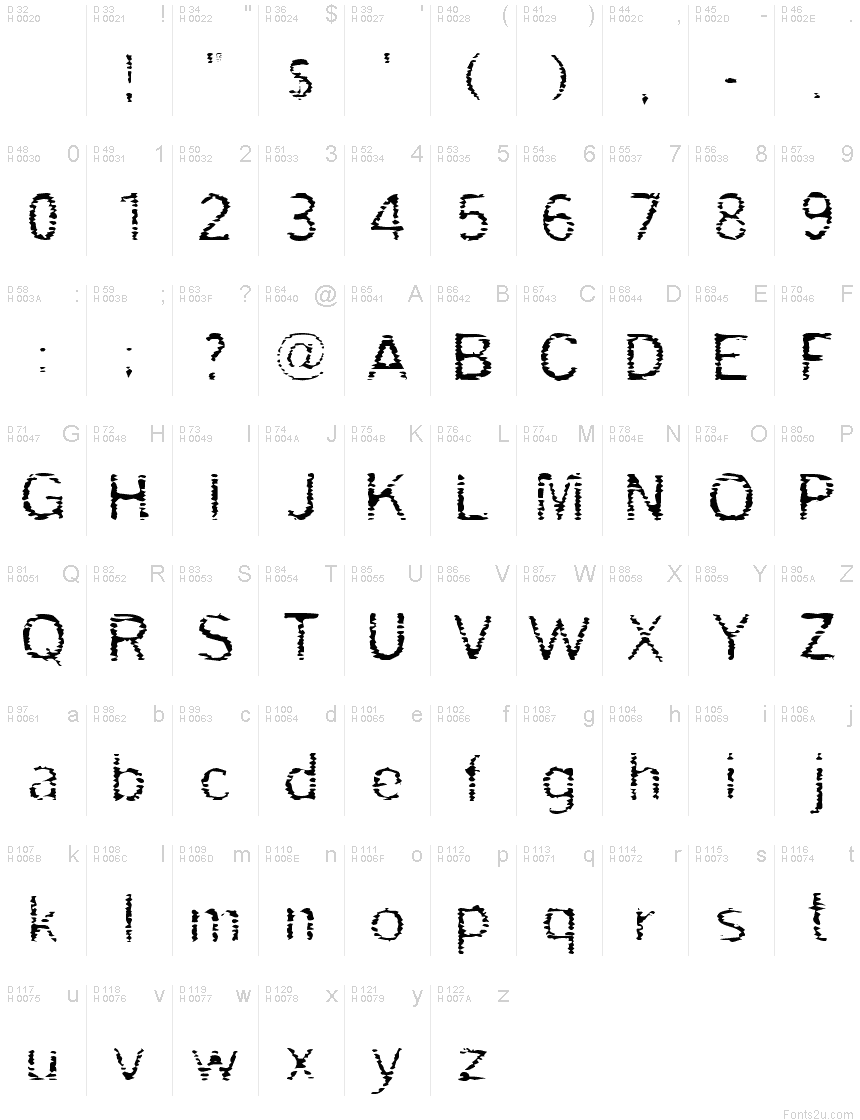
Grade
Grade font by Dave Kellam is a free eroded display typeface that looks like it’s melting off the page. Thick black strokes break into jagged ripples, as if the letters were dragged through acid or glitched on a damaged VHS tape. The texture is dense and inky, so every word feels noisy, unstable, and a little dangerous-great when you want type that looks less designed and more corroded by time or signal interference.
Using Grade, headlines instantly pick up a distorted, underground energy that’s hard to fake with filters alone. This free font works beautifully for horror posters, glitchy album covers, experimental zines, rave flyers, and edgy sci‑fi titles. Keep it big and bold, then pair Grade with a very clean geometric sans or system font for body text so the chaos stays where it’s most effective: in your main titles.